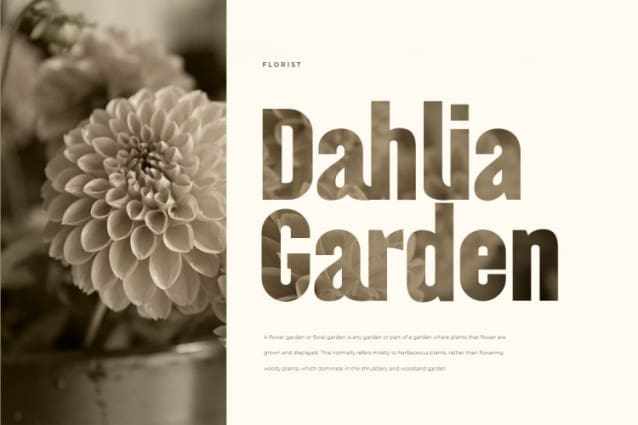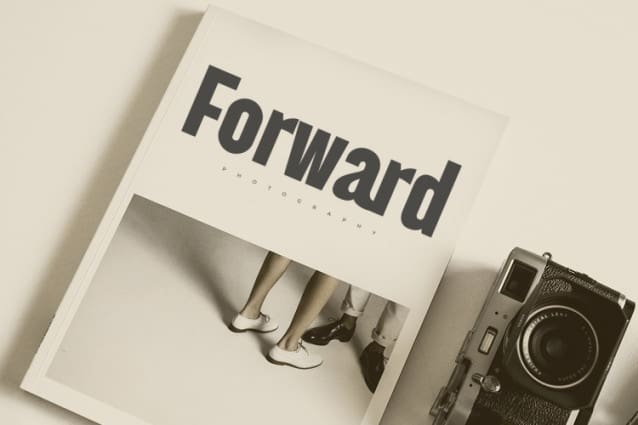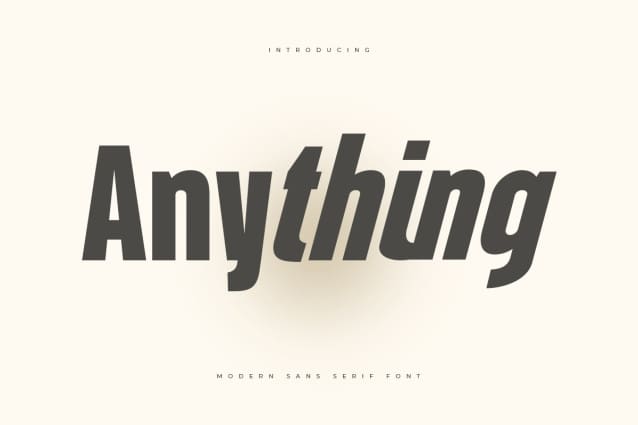
Anything Sans Font
Anything Sans Font a Sans serif that we created special for unique branding needs, with extra ligatures in unique shape will be ready to add value of your brand. It so nice to leverage designer or product owner that need solutions to make their design look more unique and modern. And specially for this font, We prepared any ligatures characters to help you create unlimited variations for your creative needs.